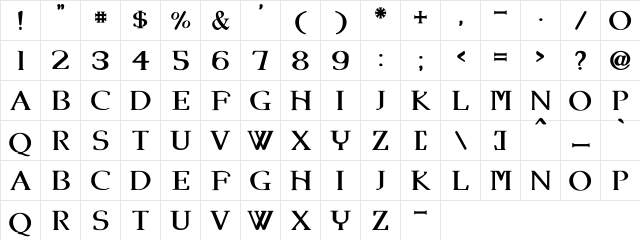
Angel Eyes Regular
| Foundry | High-Logic / Made with FontCreator |
| Designer | Joseph Dawson |
Design Context for Angel Eyes Typeface
Angel Eyes offers clean, dependable letterforms without strong stylistic allegiance, making it a practical choice for designers who need flexibility.